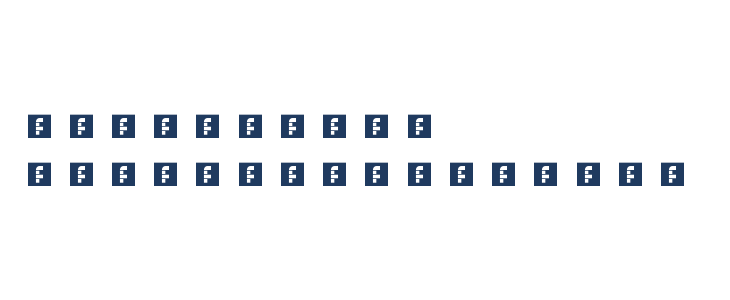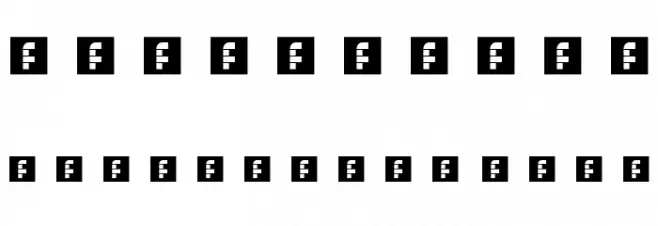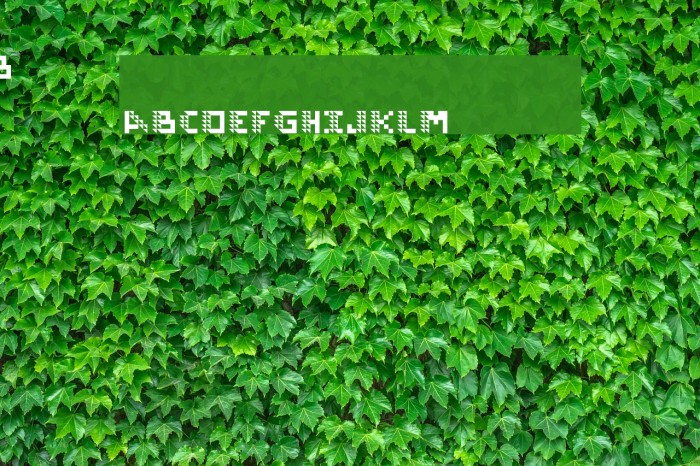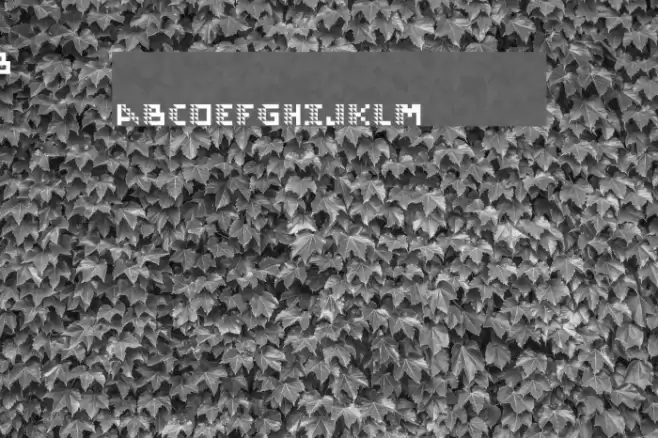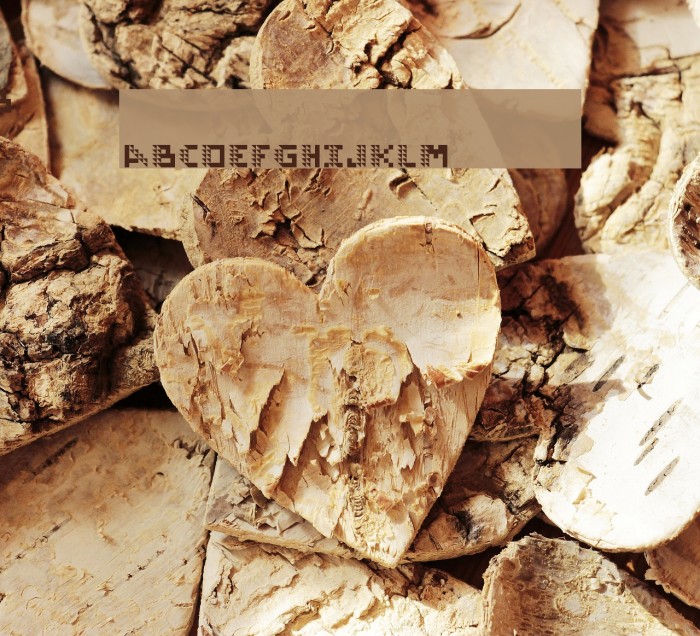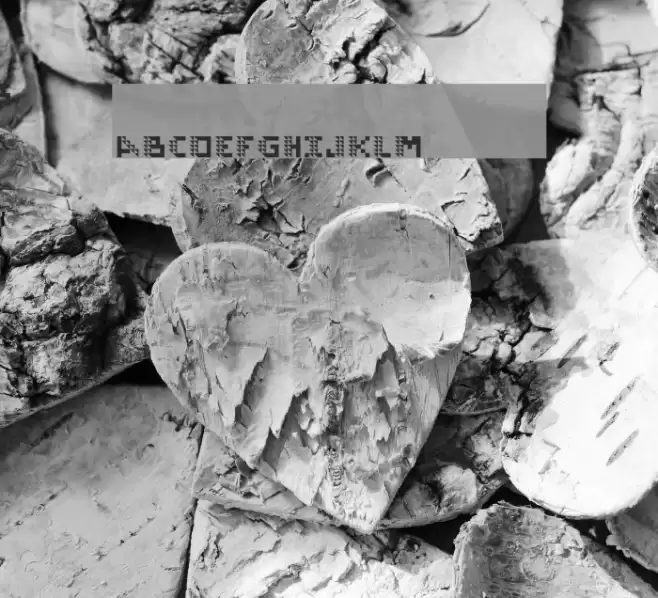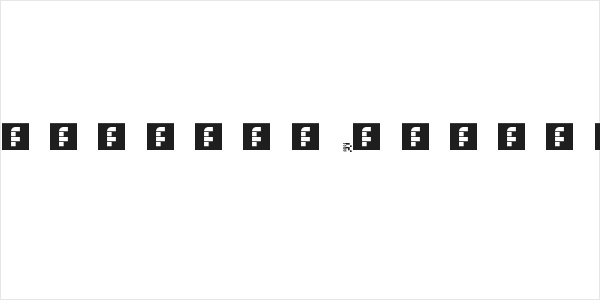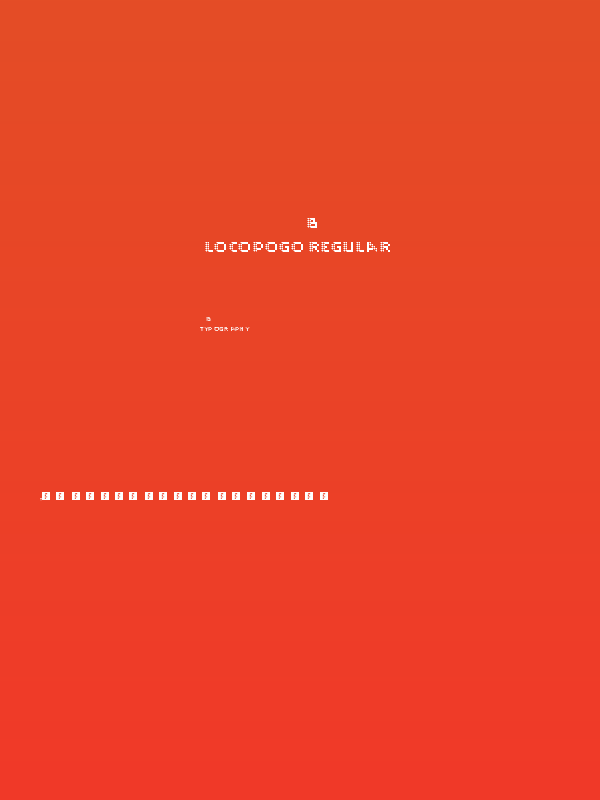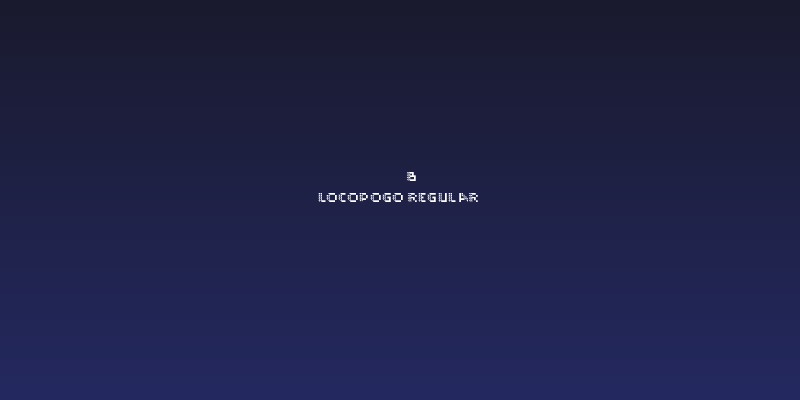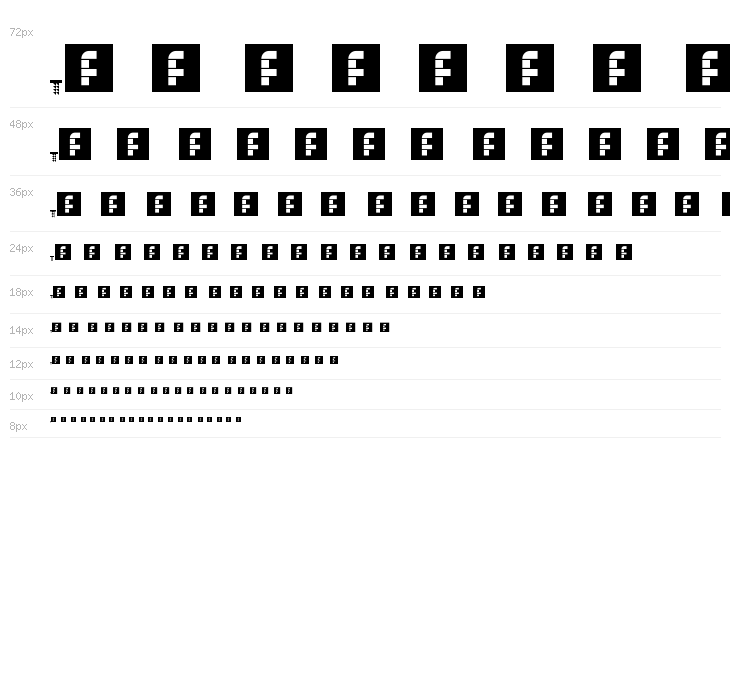
locopogo Regular Font
locopogo Regular Description
This font features a distinctive pixelated style, reminiscent of early digital or video game typography. Each character is composed of small, square blocks that create a unique, fragmented appearance. The uppercase letters are bold and geometric, with a consistent height and width, giving them a uniform look. The lowercase letters maintain this pixelated aesthetic, though they are slightly smaller in size. Numbers and special characters follow the same design principles, ensuring a cohesive visual language across all glyphs. This font's retro digital vibe makes it stand out, offering a nostalgic yet modern twist.